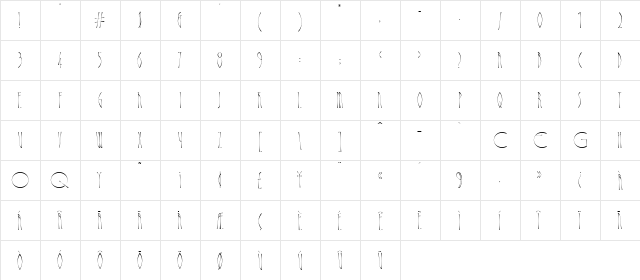
Abacus Regular
| Foundry | by Panache Typography, |
Design Context for Abacus Typeface
Abacus is a composed and adaptable typeface that performs quietly and consistently across a wide range of design contexts.